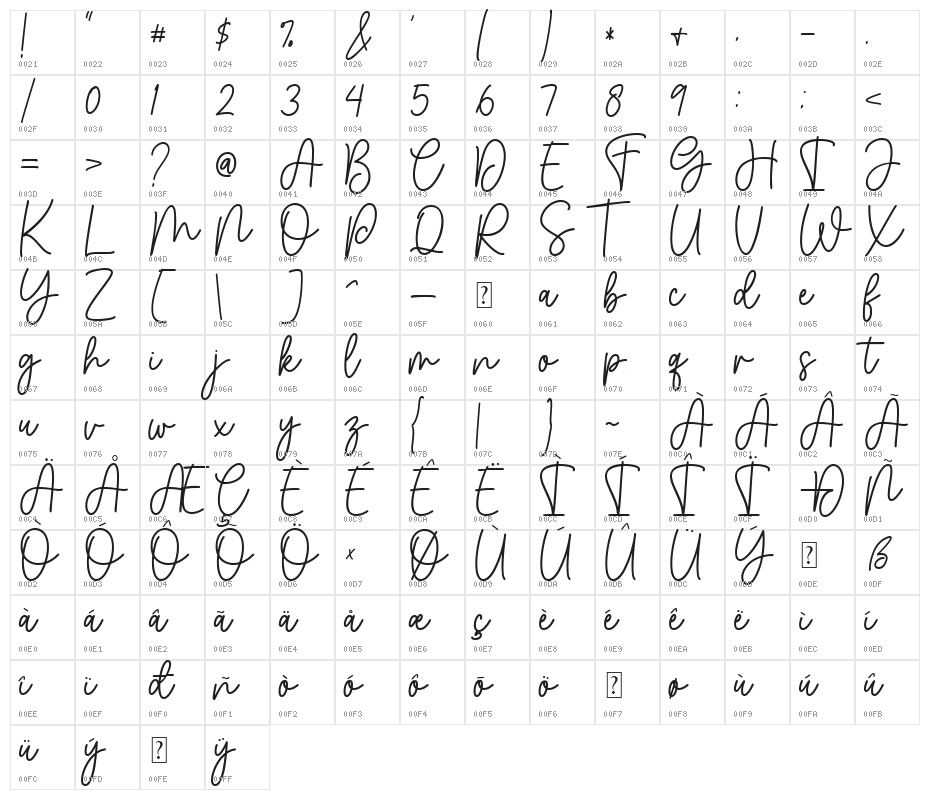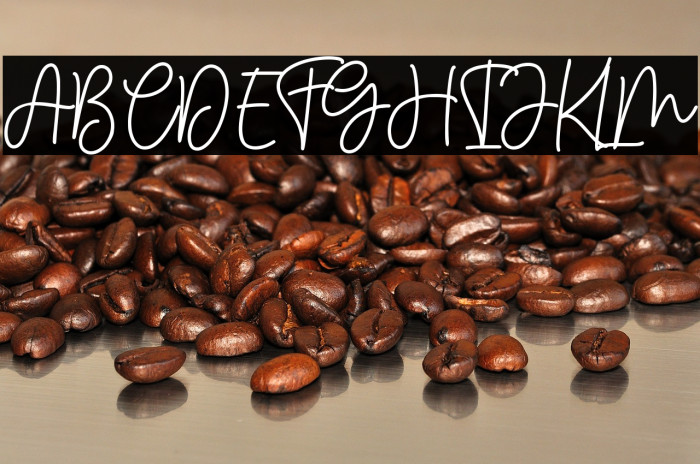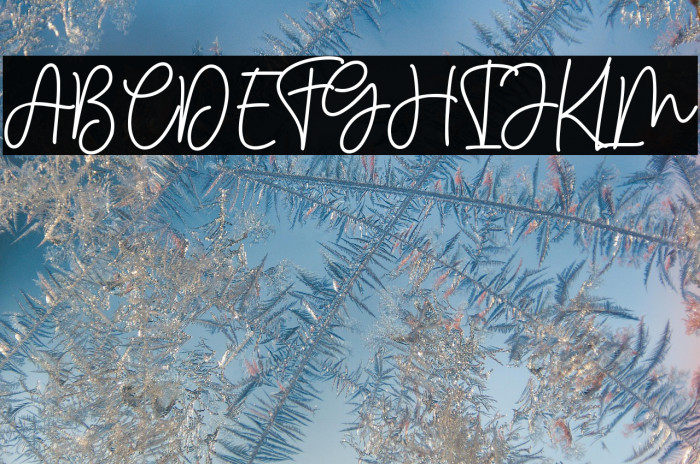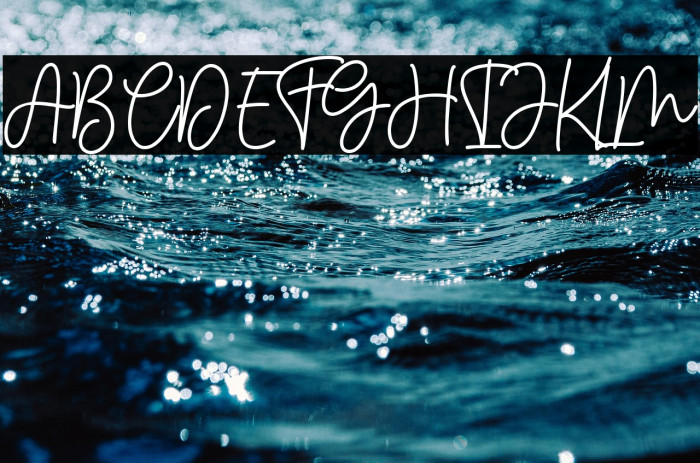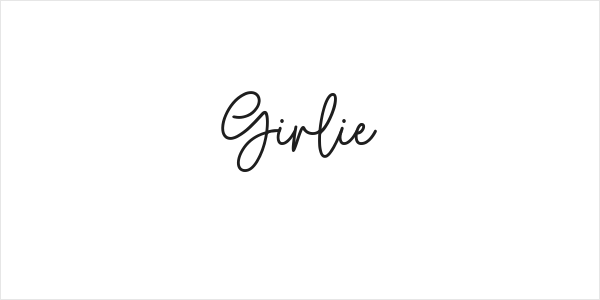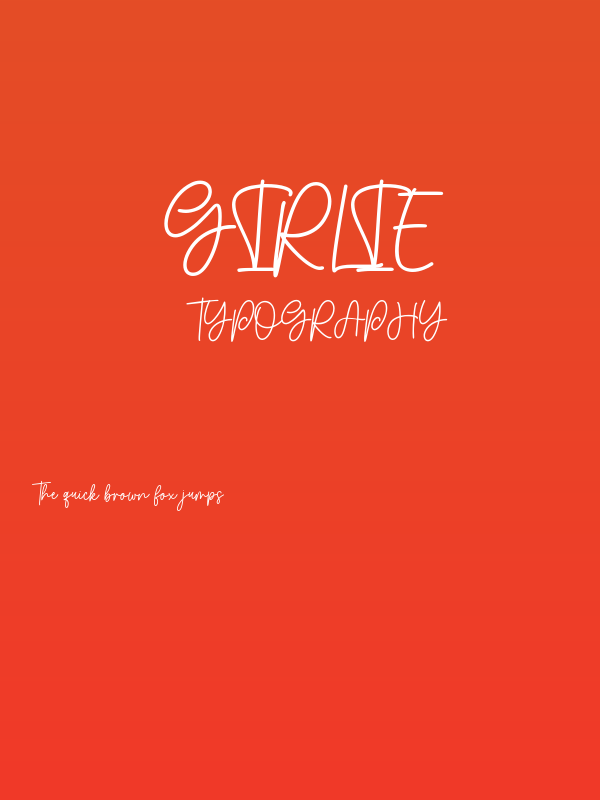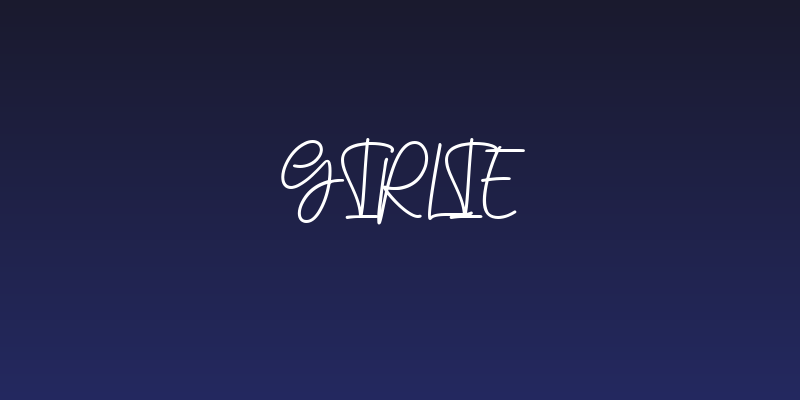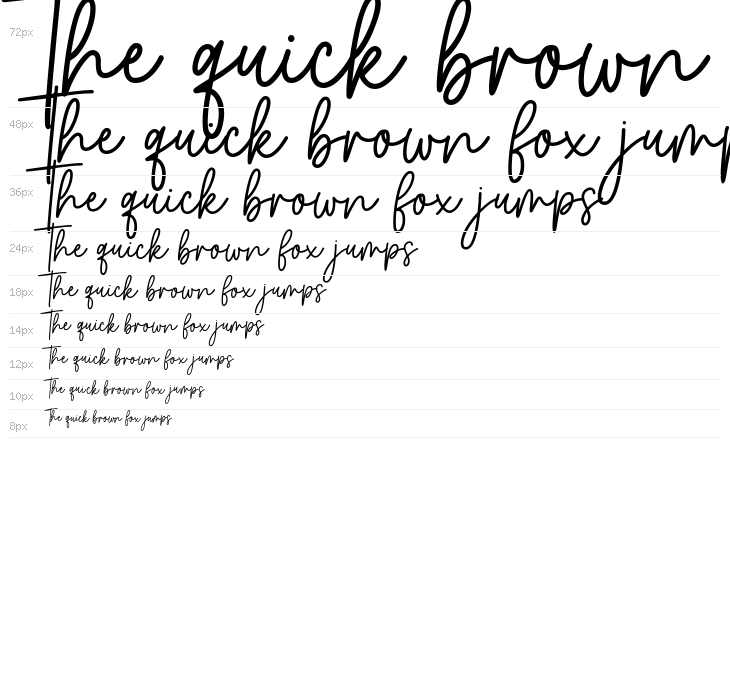
Girlie Font
Girlie Description
This font features a playful and casual handwritten style, characterized by its fluid and connected letterforms. The uppercase letters are tall and slightly narrow, with a consistent stroke width that gives them a clean appearance. The lowercase letters are more expressive, with loops and curves that add a whimsical touch. Numbers and special characters maintain the same playful aesthetic, ensuring a cohesive look across all text. The overall design is approachable and friendly, making it suitable for projects that require a personal and informal tone.